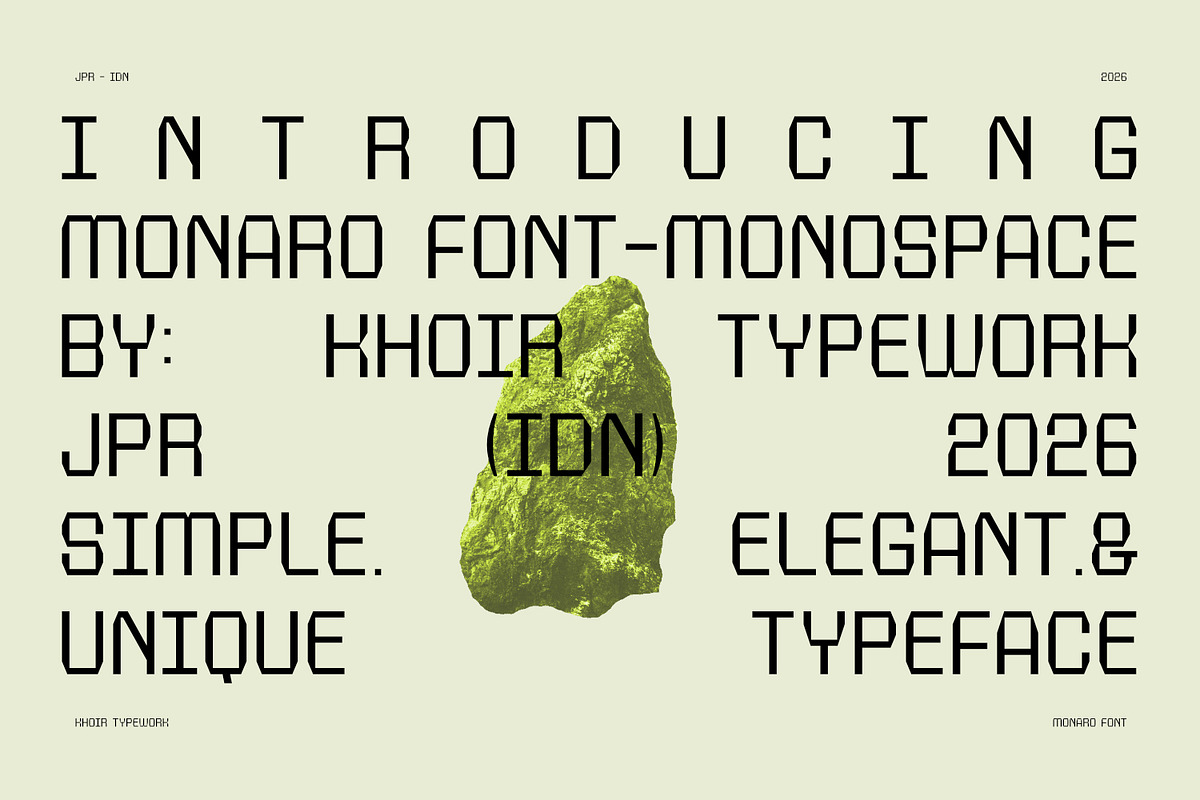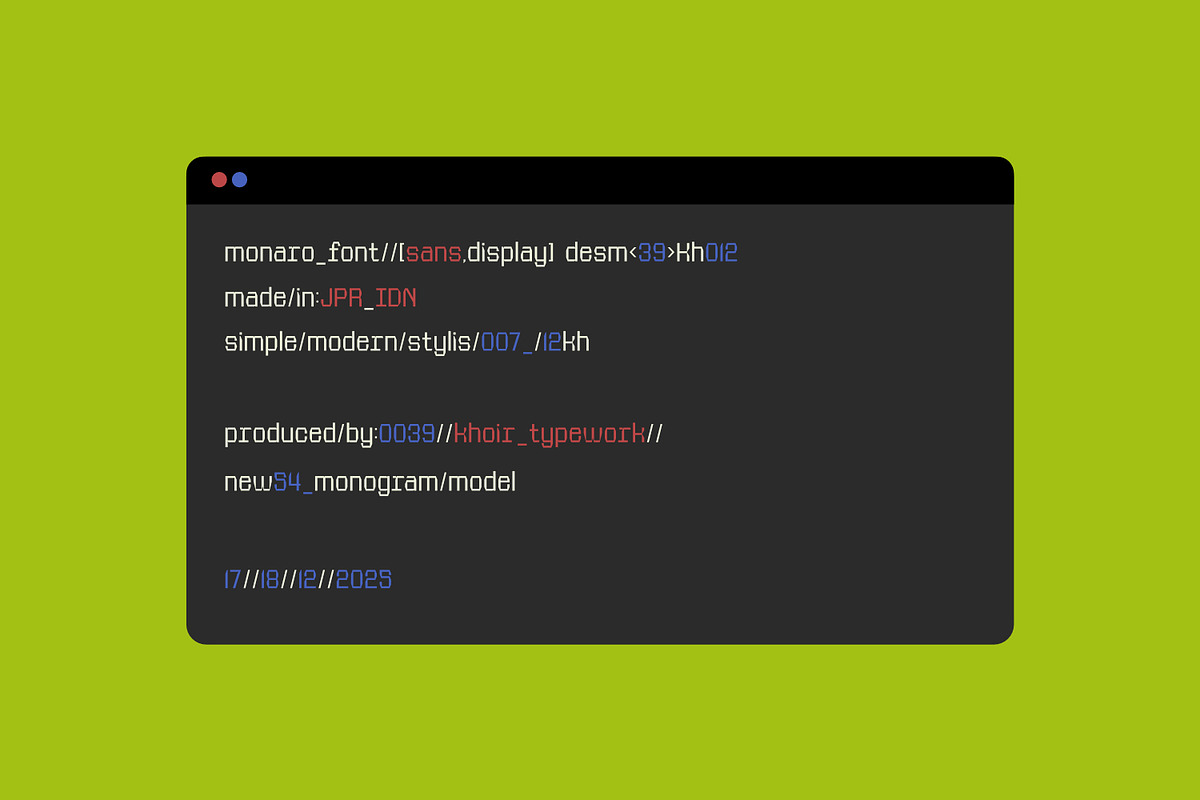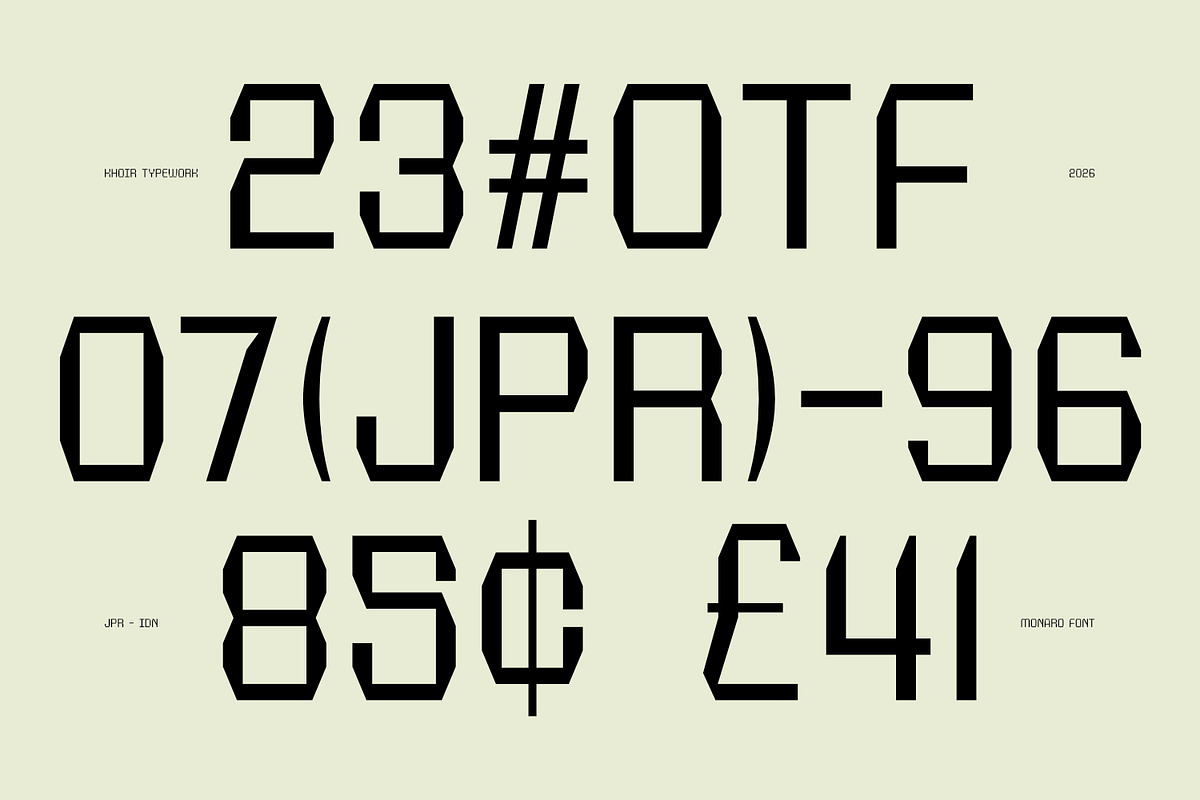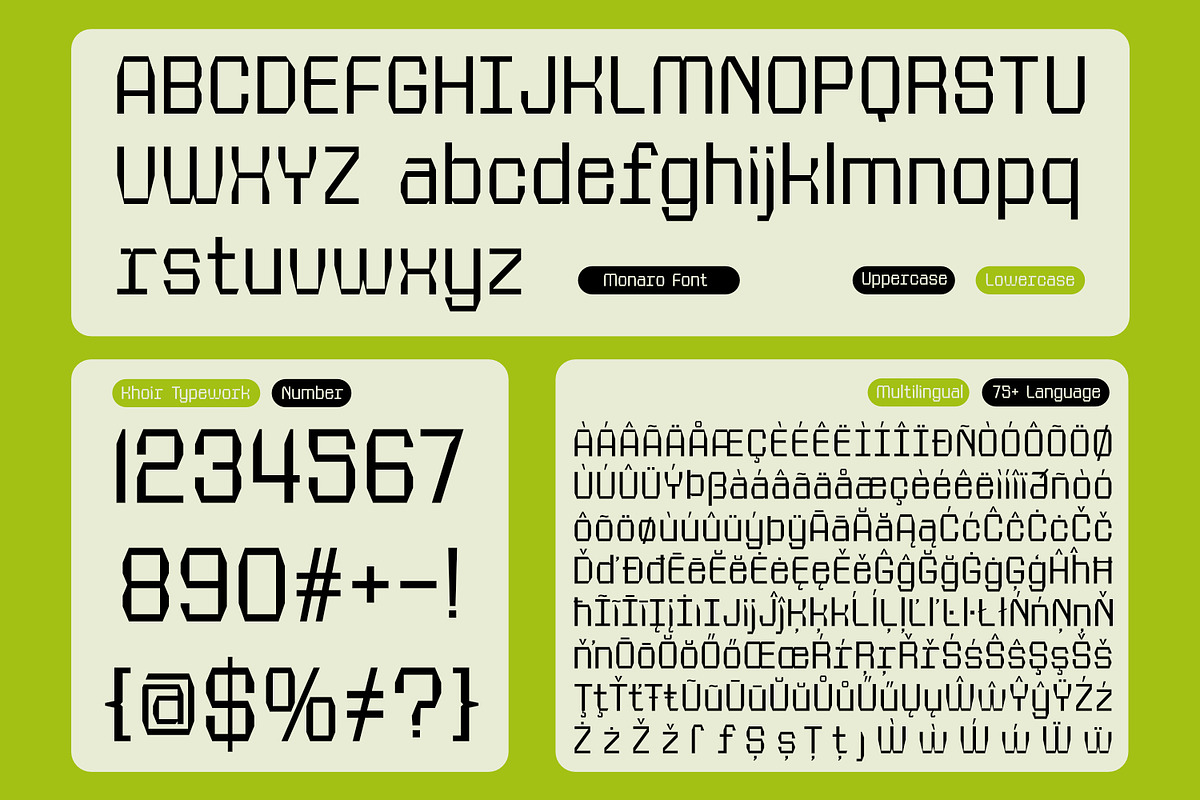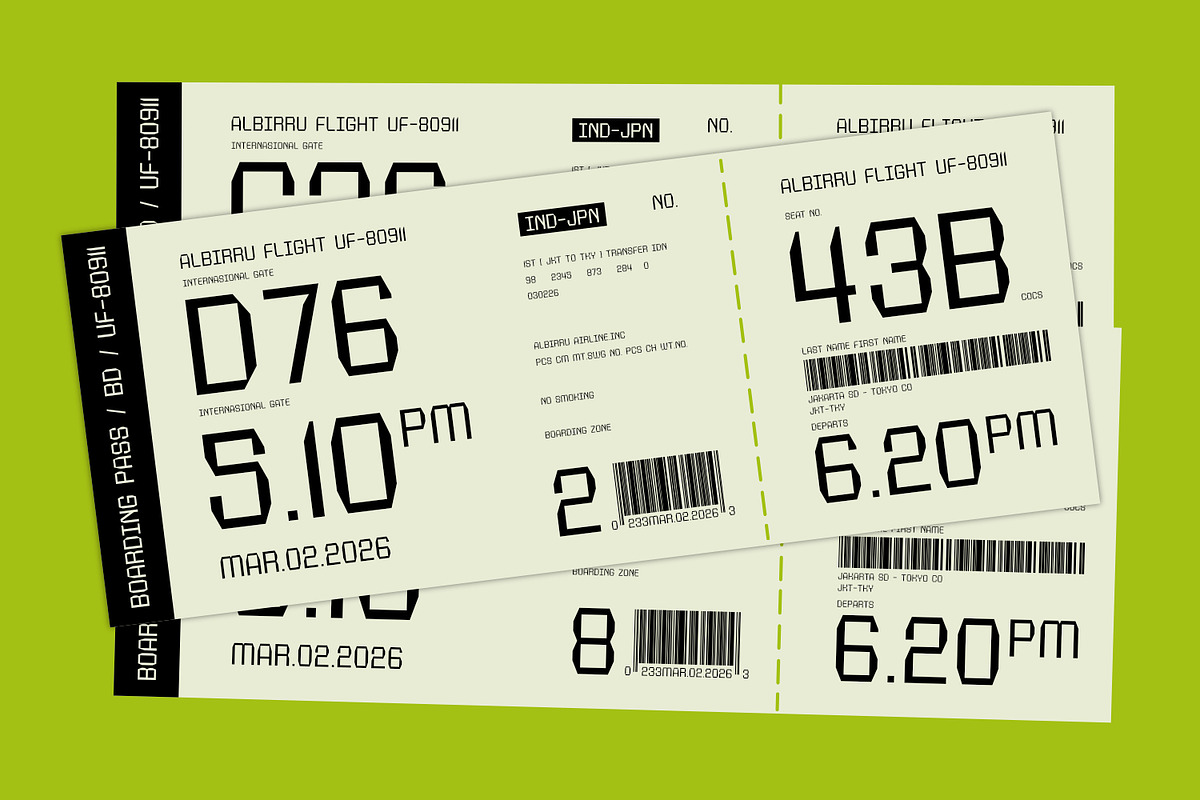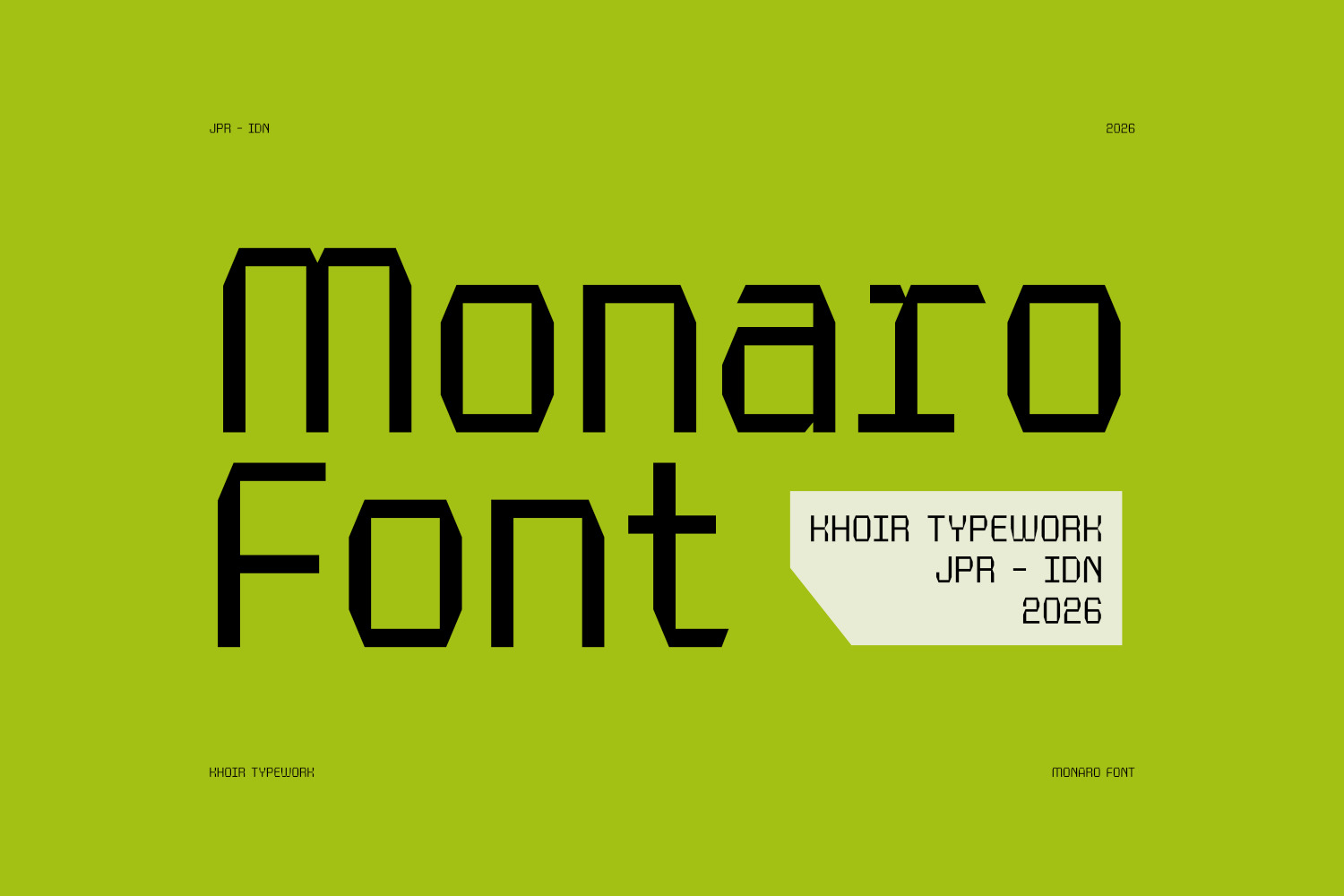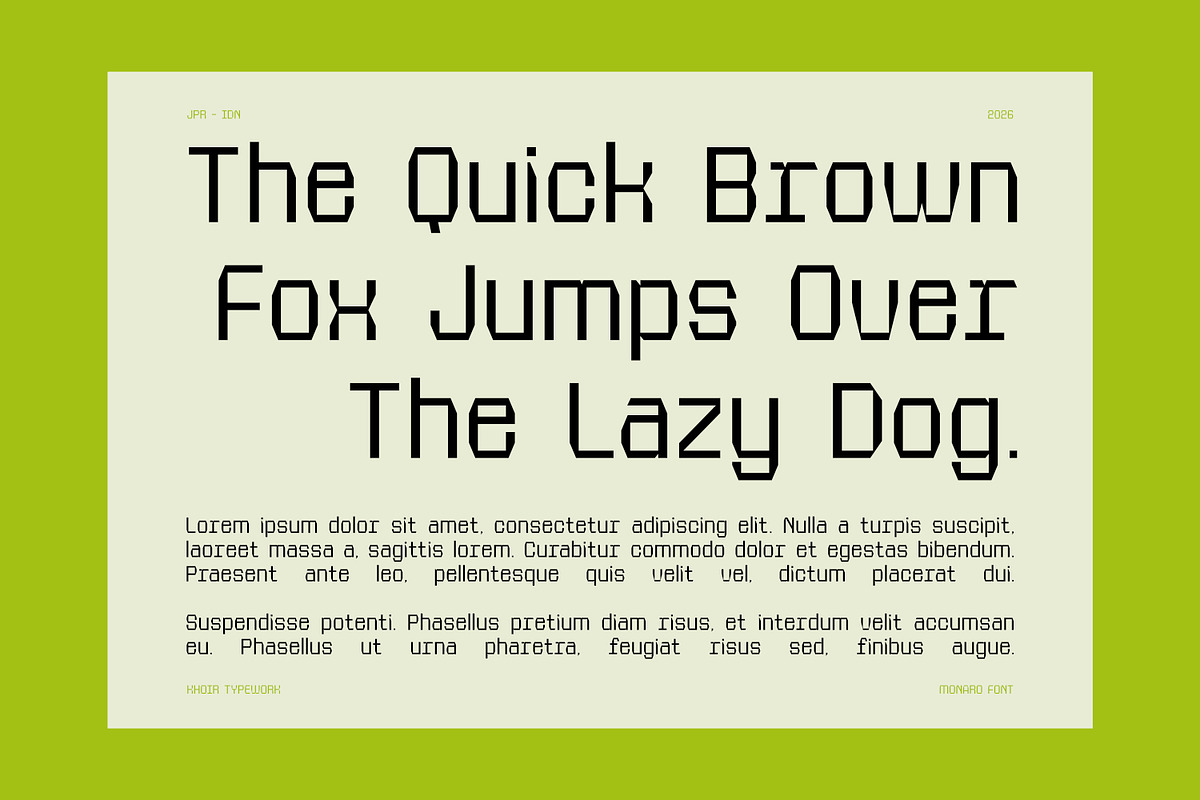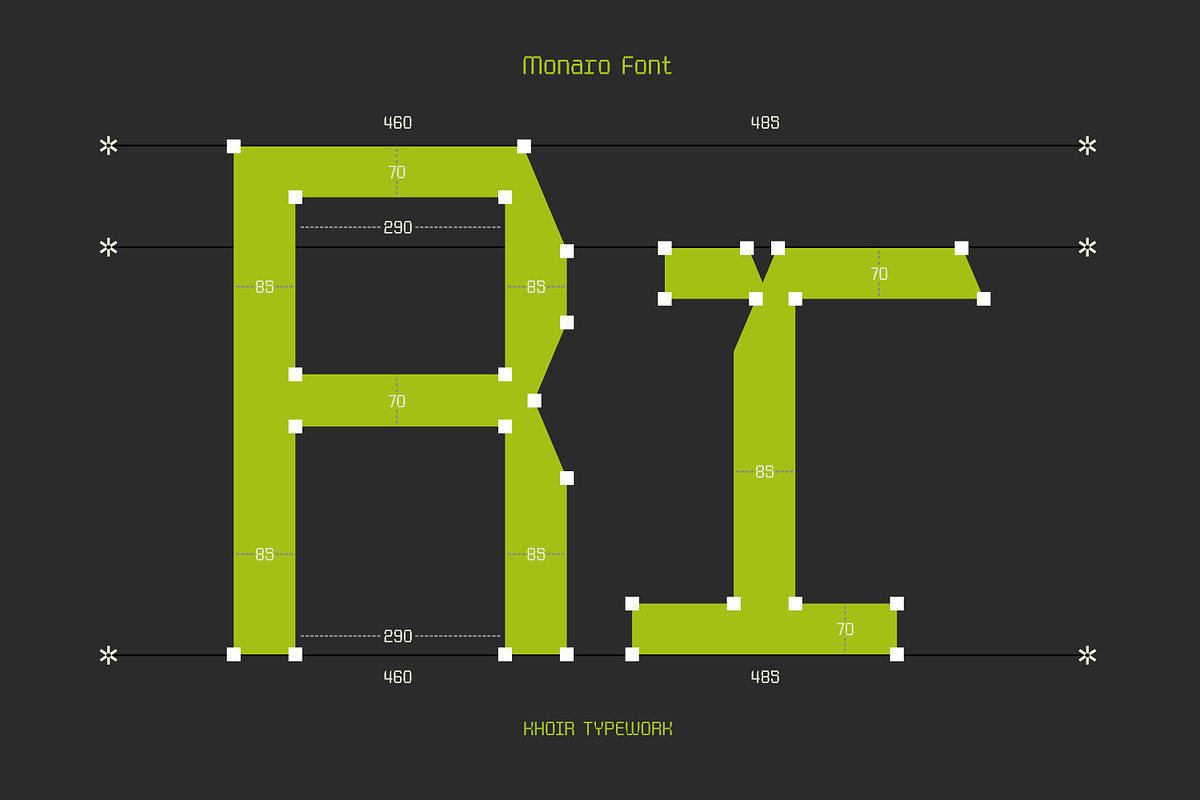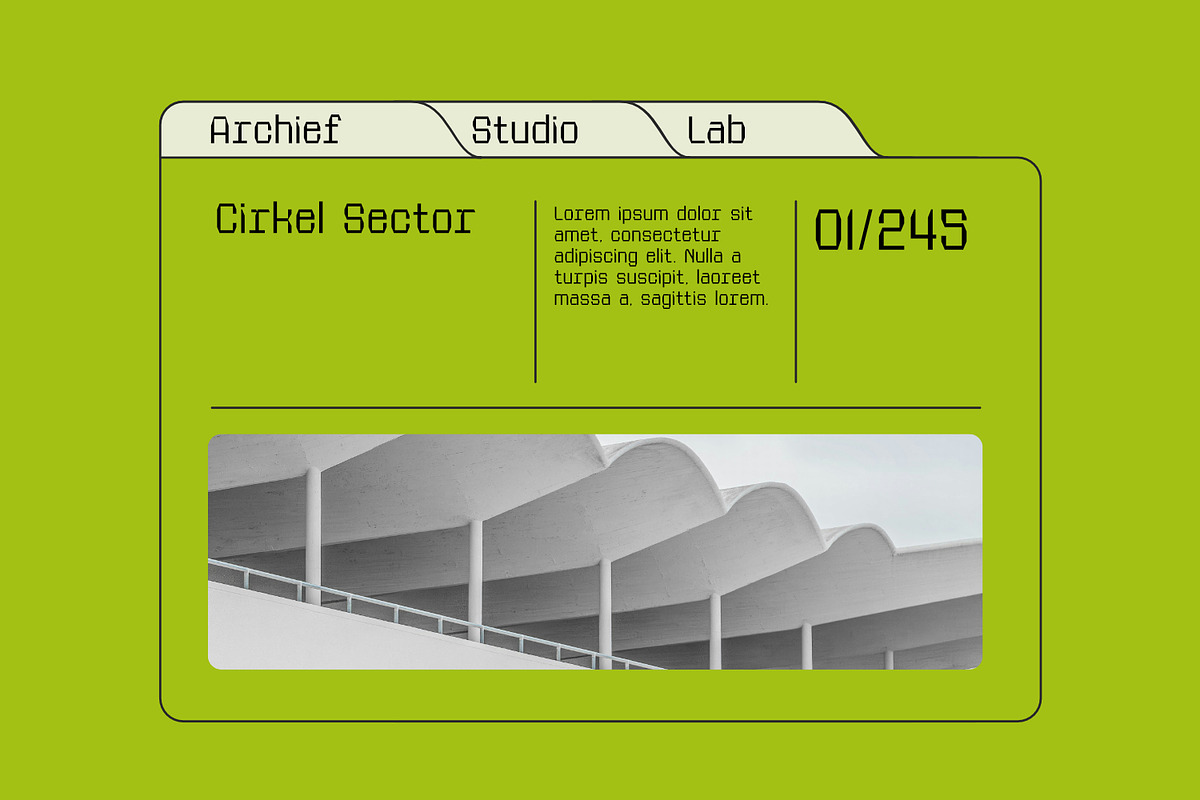
Monaro - Monospaced Font
Monaro features an minimalist mono style, characterized by consistent forms and clean, bold lines that ensure high legibility. Thanks to the distinctive, sharp cuts of its letterforms, this font is ideal for web design, coding, ticket design, logos, city branding, and much more.
Uppercase, Lowercase, Numbers, Punctuation, and Symbols
75 + Language
Multilanguage